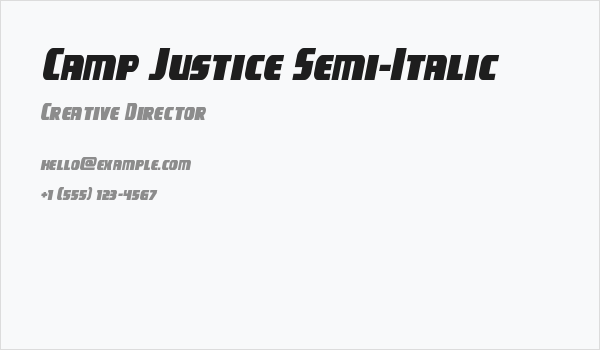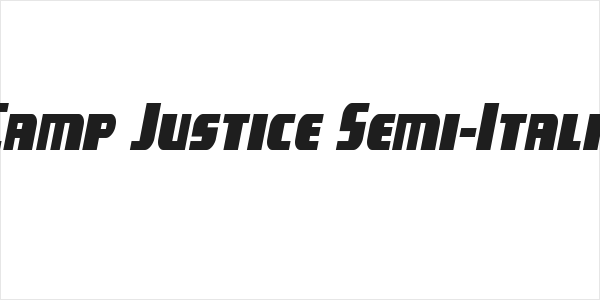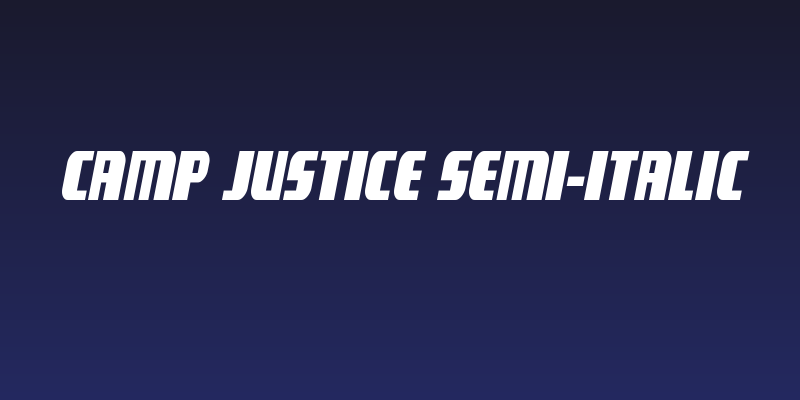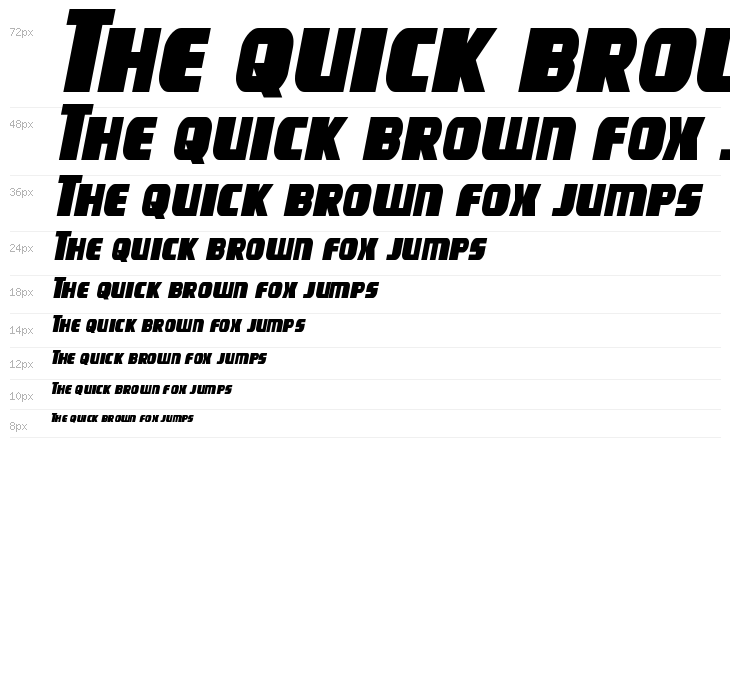
Camp Justice Semi-Italic Font
Camp Justice Semi-Italic Description
This font exhibits a bold and dynamic style with a semi-italic slant, giving it a sense of movement and energy. The uppercase and lowercase letters are designed with strong, angular lines and a slightly condensed form, which enhances its impactful appearance. The numbers and special characters maintain the same boldness and angularity, ensuring consistency across all glyphs. The font's design is modern and assertive, making it suitable for projects that require a strong visual presence. Its semi-italic nature adds a unique flair, distinguishing it from standard bold fonts.
Proposed ProjectsIdeal for sports branding, action movie posters, dynamic logos, and modern advertising campaigns.